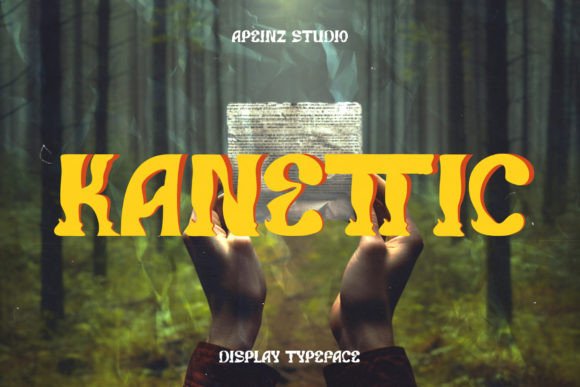
Prepare yourself to be captivated by Kanettic Font, a thought-provoking display font that amplifies your creations with boldness and artistry. Kanettic's distinct letterforms, inspired by the charm of crayon monograms, are designed to leave an indelible mark on your visual communication. Experience the thrill of crafting logos, posters, social media graphics, and packaging designs that ignite curiosity and capture hearts. Kanettic Font is not just a collection of characters; it's an artistic expression that transforms ordinary text into a symphony of visual delight. Its bold strokes and captivating curves demand attention, making it the perfect choice for designers seeking to make a powerful statement.
With Kanettic Font in your design arsenal, you'll discover a world of creative possibilities. It's the perfect font to craft captivating headlines that command attention, inspiring your audience to delve deeper into your message. Unleash your creativity and watch as your designs take on a life of their own, captivating your audience with their striking visual appeal. Experience the magic of Kanettic Font and elevate your designs to new heights of brilliance.
But Kanettic Font is more than just a tool for visual impact. It's a testament to the power of individuality and self-expression. Each character is meticulously crafted to reflect the essence of artistic flair, inviting you to infuse your designs with your own unique personality. Whether you're a seasoned designer or just starting your creative journey, Kanettic Font will empower you to create designs that resonate with your audience and leave a lasting impression.
So, embrace the allure of Kanettic Font, a display font like no other. Let its bold strokes and captivating curves ignite your creativity and transform your designs into masterpieces of visual communication. Experience the power of Kanettic Font and watch as your creations come alive with a brilliance that captivates and inspires.